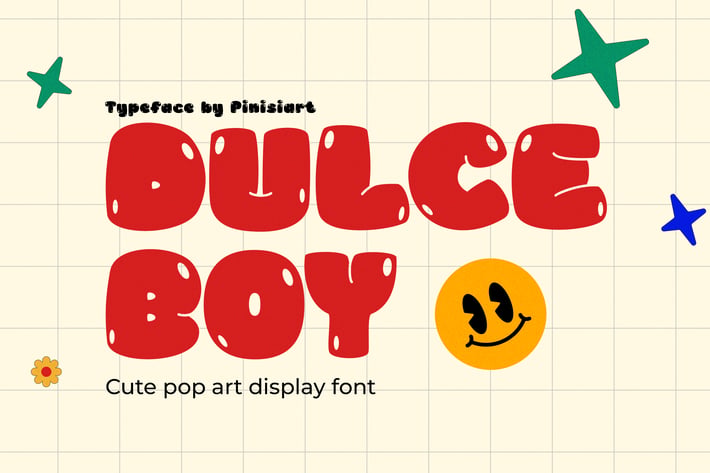
Bubble Font - Dulce Boy
Get ready to add a burst of happiness to your designs with Dulce Boy, a playful, bubbly display font inspired by retro pop art and childhood nostalgia. With its chunky, rounded letterforms and hand-drawn imperfections, this font radiates fun and positivity, making it perfect for vibrant, feel-good projects.
Dulce Boy is made for creatives who love bold typography—whether you're designing eye-catching posters, fun stickers, cheerful social media posts, or nostalgic branding, this font delivers a youthful and energetic aesthetic that stands out in any setting.
Why Choose Dulce Boy?
Chunky & Fun – Bold, bouncy letters that capture a playful vibe.
Retro Pop Aesthetic – Inspired by classic pop art and vintage sticker designs.
Perfect for Merch & Branding – Ideal for packaging, apparel, posters, and more.
Youthful & Whimsical – Brings a carefree, nostalgic energy to any project.
Easy to Read & Versatile – Works well for both headlines and branding elements.
Dulce Boy is a go-to font for designers who want to add fun and nostalgia to their work. Ideal for kids’ merchandise, social media content, branding for playful brands, sticker designs, comic-style posters, fun typography layouts, event promotions, and cheerful packaging.